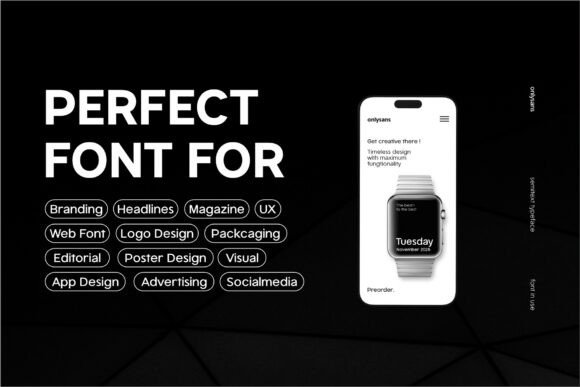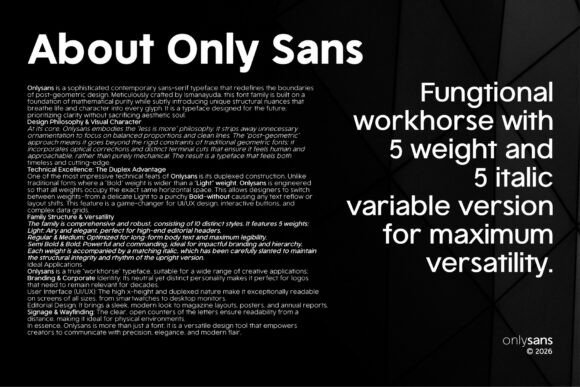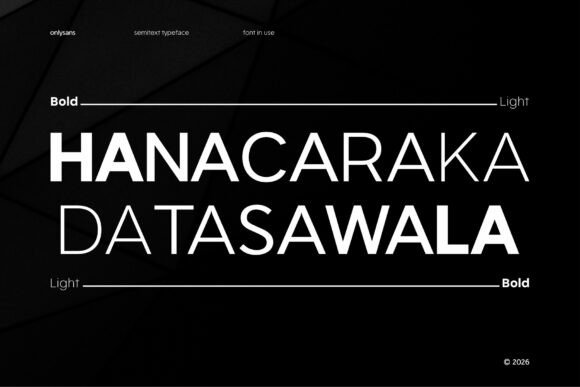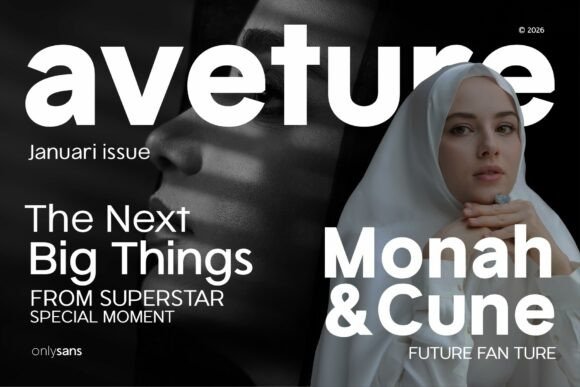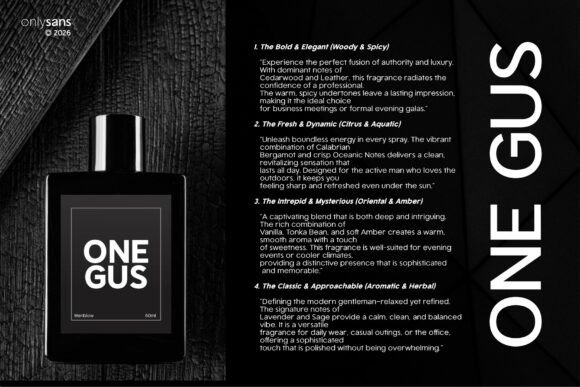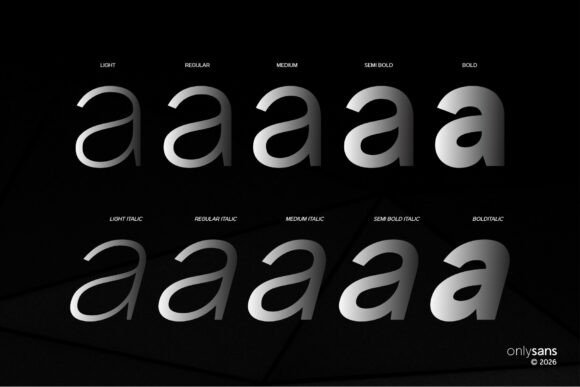
Introduction to Onlysans Font
Onlysans is a modern, geometric sans-serif typeface designed with a focus on clarity and versatility.
It features a minimalist aesthetic with clean lines and balanced proportions, making it highly legible for both display and body text With its diverse range of 10 fonts—spanning 5 weights from Light to Bold with matching italics—Onlysans offers a professional and contemporary feel.
Key Features of Onlysans Font
Why Choose Onlysans Font?
Onlysans Font offers exceptional quality and versatility, making it a valuable addition to your design toolkit. Whether you’re creating for personal projects or commercial use, Onlysans Font delivers professional results.